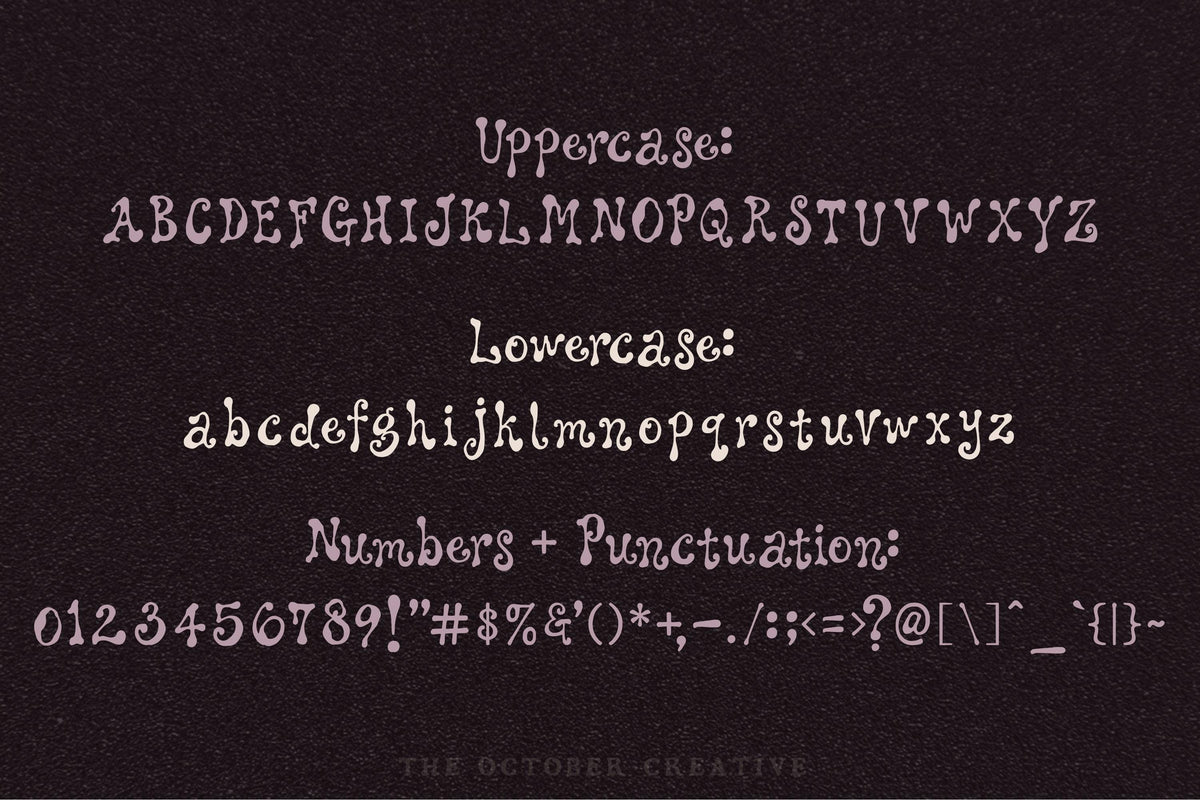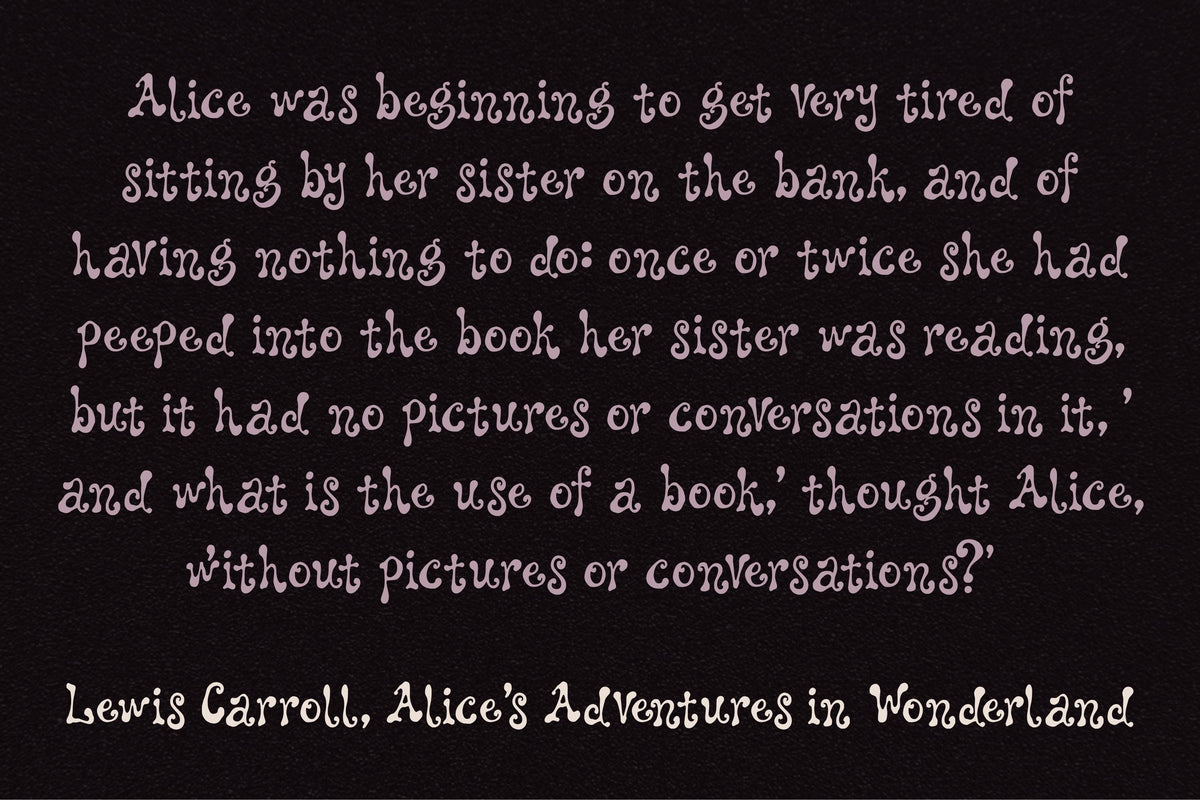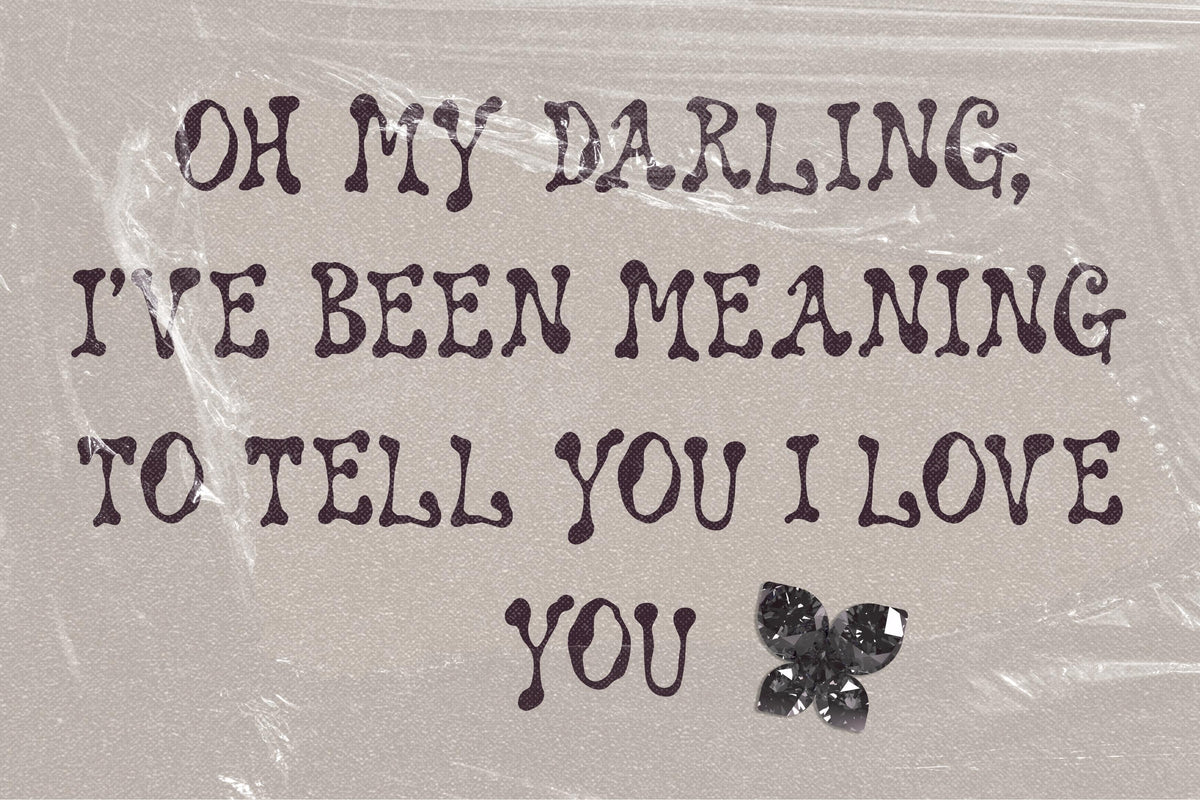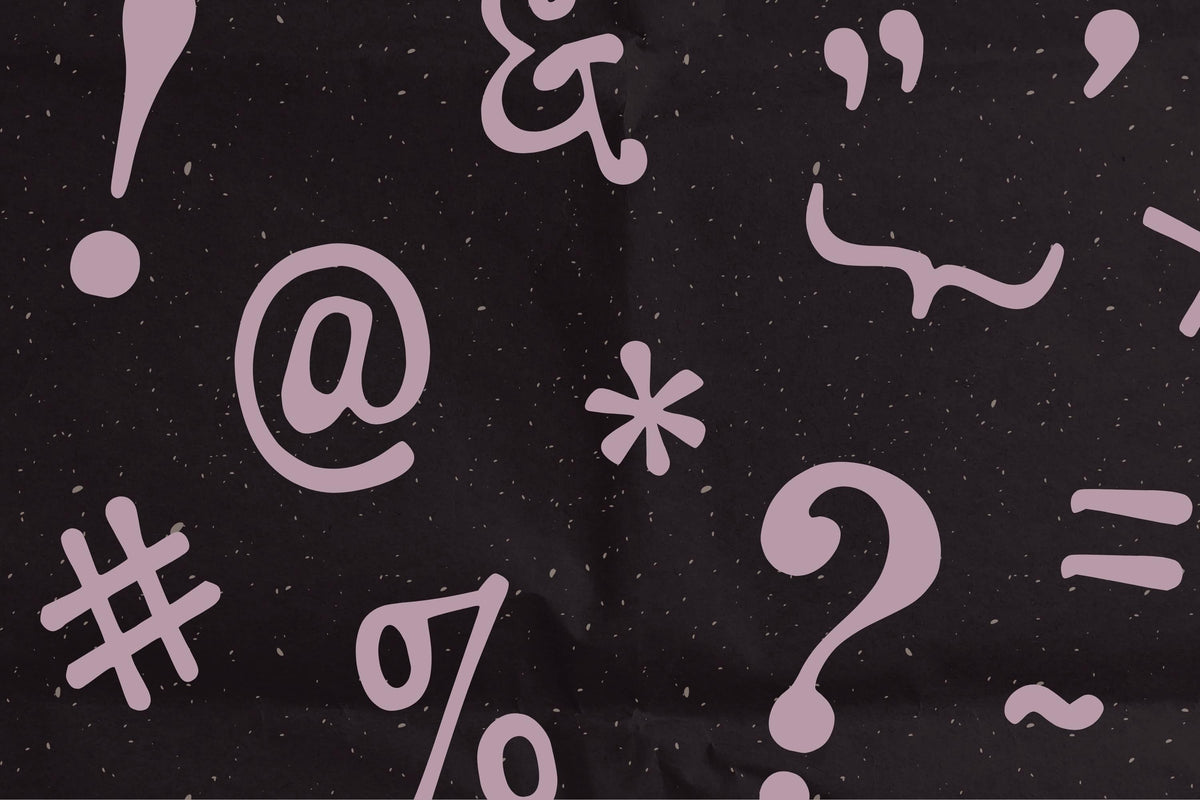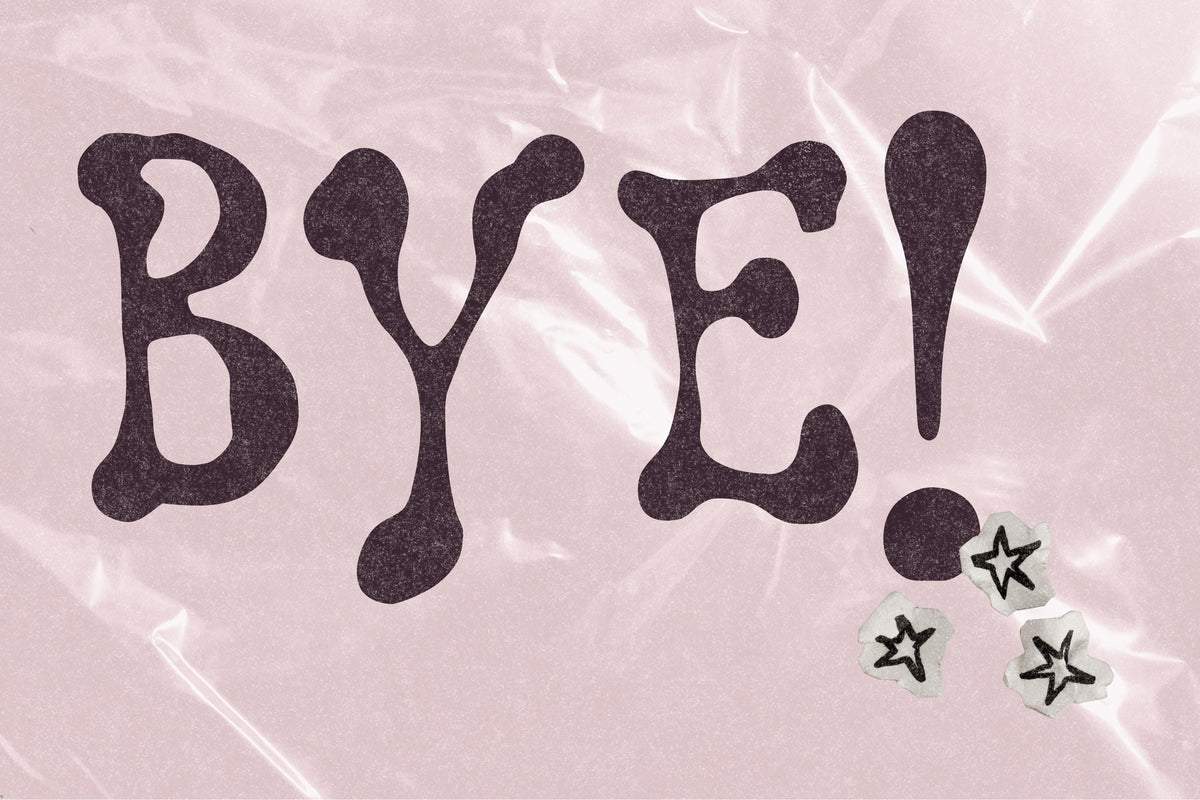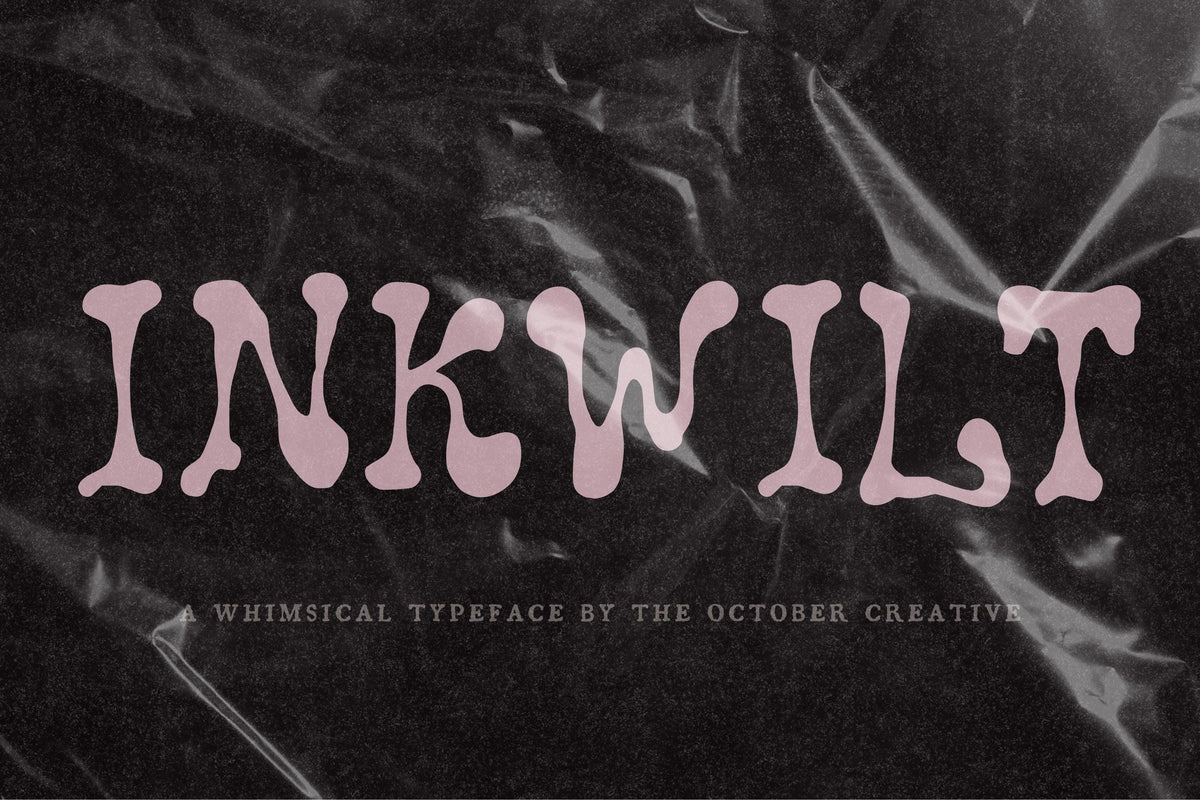
Inkwilt Font
Inkwilt brings thick, rounded letters and a generous helping of 70s charm to book titles, posters, and labels. Use it when you want the lettering to be a big part of the picture, with curves that are too good to tuck away in the corner.